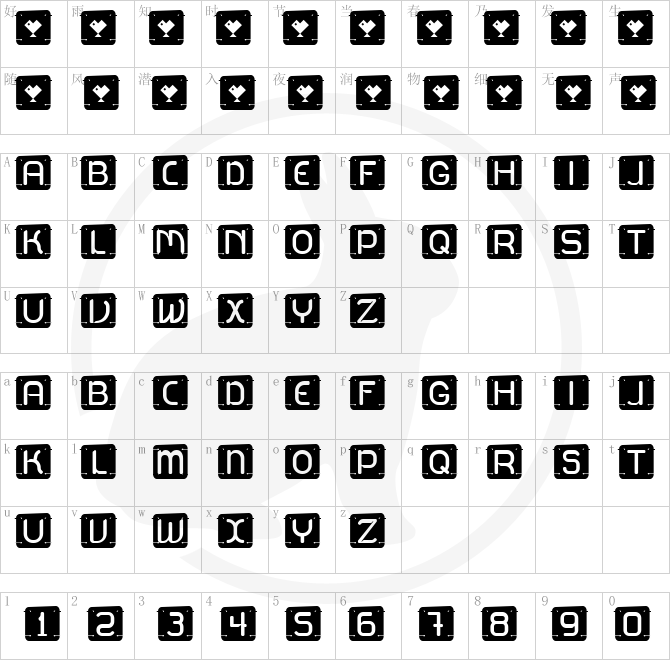
- Font Name:U2 Metalona*
U2-Metalona.ttf is a very beautiful artistic font, U2-Metalona.ttf is widely used in the design and printing of various books and pictures,U2-Metalona.ttf has a strong visual impact,U2-Metalona.ttf is a commonly used font in newspapers, magazines and books, and is used in posters, e-commerce Poster design, store design, logo design, font design and other fields.U2-Metalona.